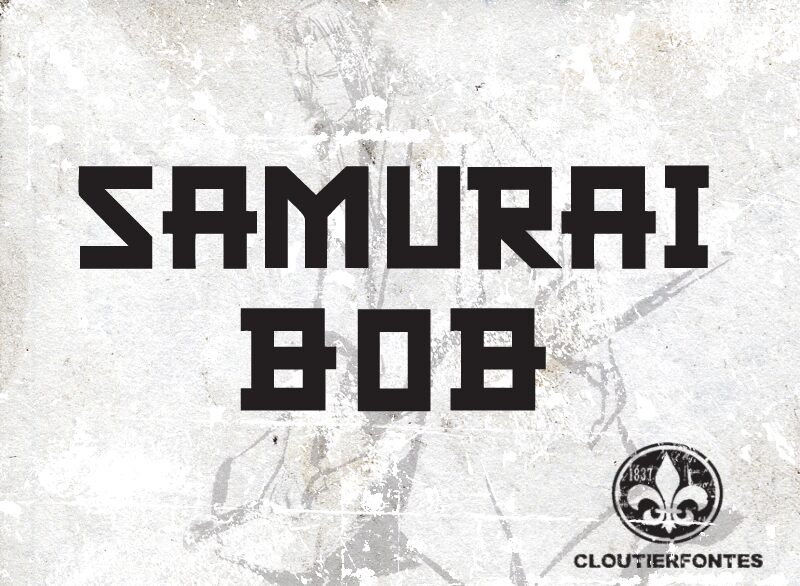
CF Samurai Bob by Cloutier Fontes is a free Japanese-inspired display font with broad, angular letterforms. Deep rectangular cuts break up the strokes, and pointed notches give several letters the look of folded armor plates. The silhouette is compact and forceful.
Martial arts branding and arcade game graphics both benefit from its hard-edged construction and clear action theme. It also suits tournament posters and themed merchandise, where the lettering can function almost like an emblem. The style is aimed squarely at audiences drawn to samurai stories, fighting games, and Japanese pop-culture references.
CF Samurai Bob Regular is a font by CloutierFontes, designed by Steve Cloutier in 2012.